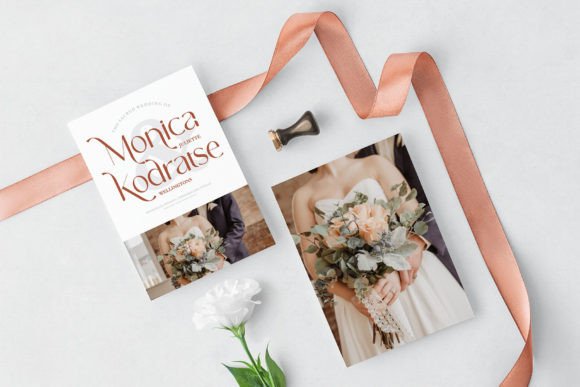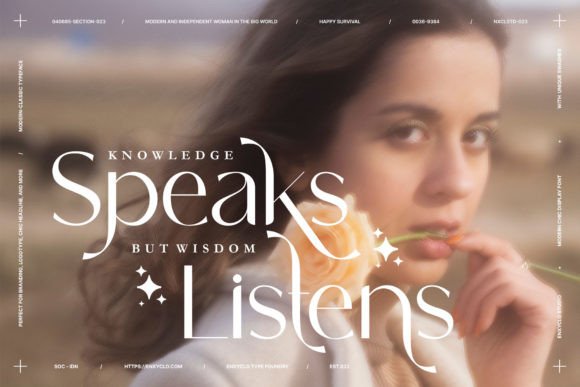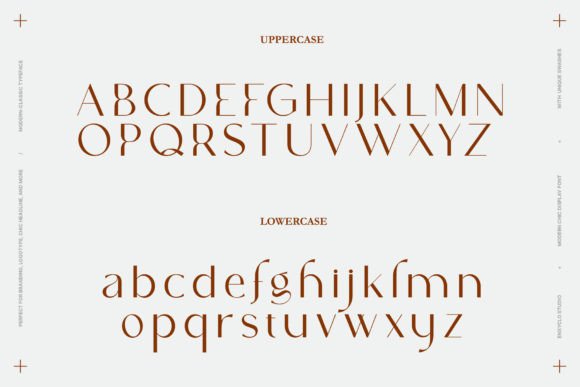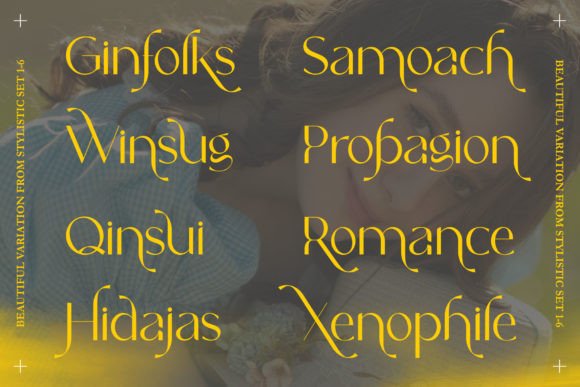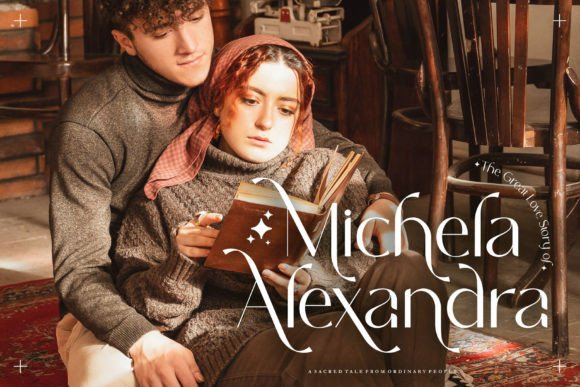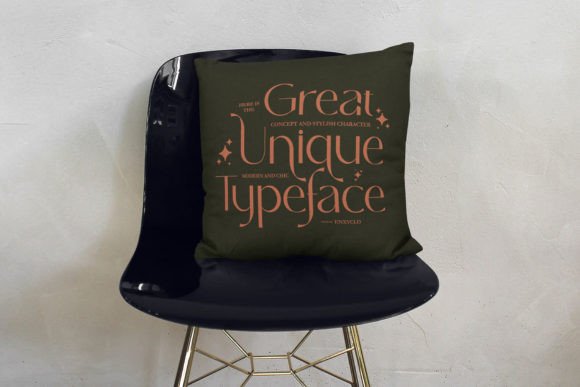
Bhagnes Kirefoda Font: Elevate Your Designs with Elegance and Sophistication
In the world of typography, a font can make or break a design. It’s the foundation upon which creativity is built, and the right choice can elevate a project from ordinary to extraordinary. For designers and crafters seeking a unique and beautiful serif font to bring their ideas to life, Bhagnes Kirefoda is an exceptional choice. This stunning font is masterfully designed to capture the essence of elegance and sophistication, making it perfect for a wide range of creative projects.
A Font of Distinction
Bhagnes Kirefoda is a beautiful and unique serif font that stands out from the crowd. Its distinctive style and refined features make it an excellent addition to any font library. With its classic and timeless look, this font is sure to become a true favorite among designers and crafters. Whether you’re working on a wedding design, romantic event, headline, billboard, magazine, website, title, poster, branding, T-shirt, logo, or any other creative project, Bhagnes Kirefoda has the potential to bring your ideas to the highest level.
One of the key benefits of Bhagnes Kirefoda is its versatility. This font is perfect for a wide range of applications, from elegant wedding designs and romantic events to bold headlines and billboards. Its refined features and classic style make it an excellent choice for magazines, websites, titles, posters, and branding projects. Additionally, its unique and stylish appearance makes it ideal for T-shirts, logos, and other creative projects that require a touch of sophistication.
Bhagnes Kirefoda is PUA encoded, which means that accessing all of the glyphs and swashes is easy and convenient. This feature allows designers and crafters to explore the full potential of the font, experimenting with different styles and effects to create unique and eye-catching designs. With PUA encoding, you can access a wide range of characters, including ligatures, stylistic alternates, and swashes, giving you the creative freedom to produce exceptional work.
Why Choose Bhagnes Kirefoda?
So, why choose Bhagnes Kirefoda over other fonts? Here are just a few compelling reasons:
- Unique and distinctive style: Bhagnes Kirefoda boasts a one-of-a-kind design that will set your projects apart from the rest.
- Elegant and sophisticated: This font exudes refinement and poise, making it perfect for projects that require a touch of luxury.
- Versatile: Bhagnes Kirefoda is suitable for a wide range of applications, from wedding designs to billboards and beyond.
- PUA encoded: Easy access to glyphs and swashes means you can experiment with different styles and effects.
- High-quality design: Masterfully designed to ensure exceptional quality and attention to detail.
Tips for Using Bhagnes Kirefoda
To get the most out of Bhagnes Kirefoda, here are a few tips:
- Experiment with different sizes: This font looks great in a variety of sizes, from large headlines to smaller body text.
- Play with swashes and glyphs: Use the PUA encoded features to add unique touches to your designs.
- Pair with complementary fonts: Bhagnes Kirefoda works well with a range of fonts, so don’t be afraid to experiment with different pairings.
- Use for headlines and titles: This font is perfect for grabbing attention and making a statement.
In conclusion, Bhagnes Kirefoda is an exceptional serif font that offers elegance, sophistication, and versatility. Its unique and distinctive style makes it perfect for a wide range of creative projects, from wedding designs to billboards and beyond. With its PUA encoding and high-quality design, this font is sure to become a favorite among designers and crafters. Whether you’re looking to elevate your designs or simply want to add a touch of luxury to your projects, Bhagnes Kirefoda is an excellent choice.